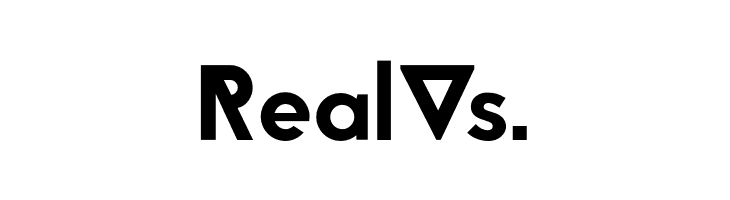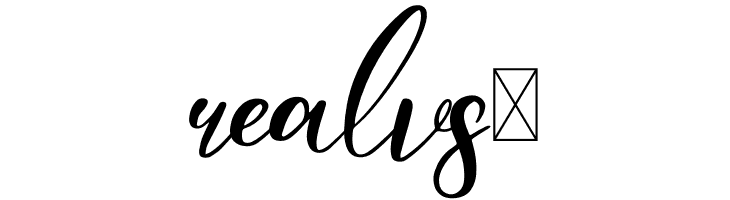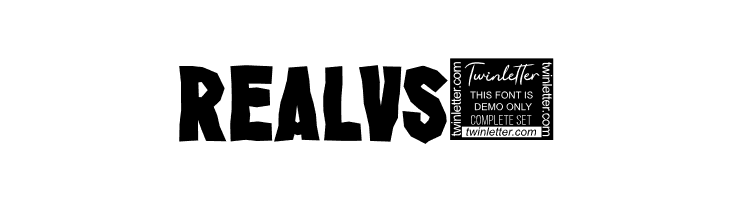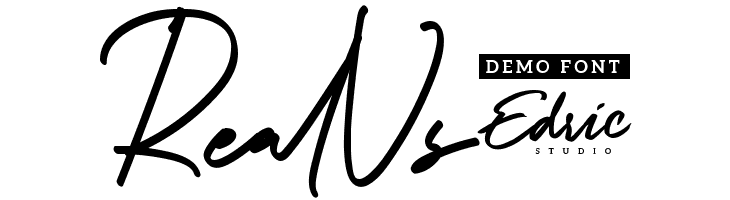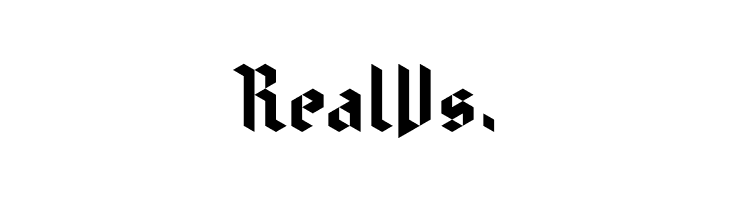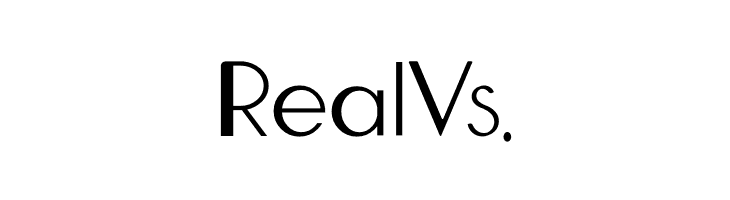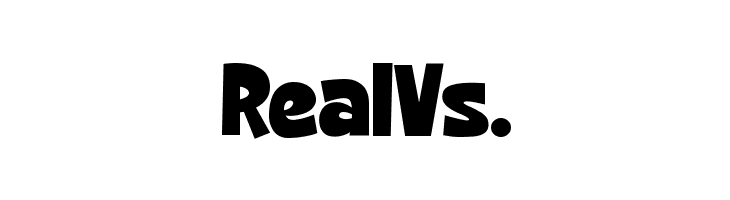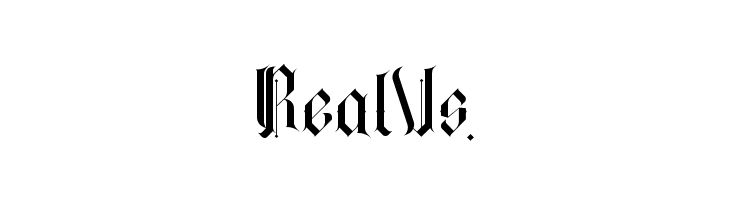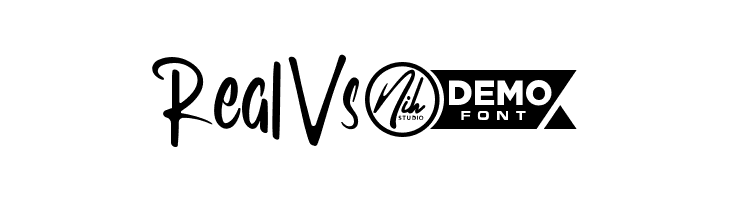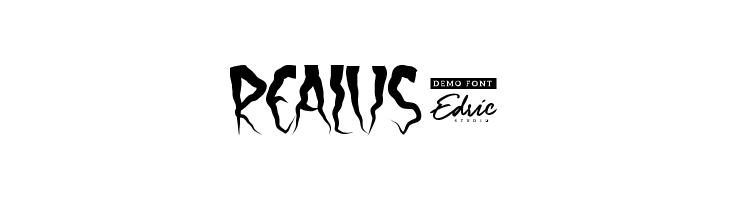
A modern, rounded sans-serif font with clean lines and balanced spacing.
A playful, rounded typeface with bold, smooth curves and a friendly appearance.
A sleek, ultra-thin font with a modern, geometric design.
A playful, handwritten font with a whimsical and informal style.
A playful, flowing script font with a handwritten charm.
A playful, casual handwritten font with smooth, flowing curves.
A playful, bold font with rounded edges and a hand-drawn feel.
A geometric, angular font with a futuristic and technical look.
A bold, angular font with a futuristic and geometric design.
A bold, italic, futuristic font with sharp, angular lines.
A bold, geometric font with a futuristic and edgy design.
A bold, angular, and italicized font with a futuristic style.
A modern, angular italic font with a futuristic and geometric style.
A bold, playful font with rounded, thick letterforms.
A modern serif font with clean lines and medium contrast, ideal for elegant designs.
A whimsical handwritten font with thin strokes and rounded edges.
A playful, handwritten script font with a casual and flowing style.
A bold, geometric font with sharp angles and high contrast, perfect for modern headlines.
A graceful, cursive script font with flowing, elongated strokes.
A bold, distressed font with a vintage, textured appearance.
A playful handwritten font with dynamic strokes and a casual, whimsical style.
A bold, expressive script font with flowing, cursive letterforms.
A lively, handwritten-style font with bold, irregular strokes.
A dynamic, handwritten font with fluid, slanted strokes.
( Nur Cholis Majid )
A bold, distressed font with a vintage, handcrafted appearance.
( Fonts by Jetsmax Studio - Khairil Anwar - Personal-use only. For commercial use please contact owner. )
A playful, bold font with a whimsical, hand-drawn style.
( Fonts by Rian Dryana )
A bold, playful font with a bubbly, rounded appearance.
( Fonts by Rian Dryana )
A playful, bold outline font with a bubbly, inflated appearance.
( Fonts by Bisou - Personal-use only. For commercial use please contact owner. )
A bold, brush-style font with sharp, dynamic strokes and a hand-drawn feel.
( Fonts by Bisou - Personal-use only. For commercial use please contact owner. )
A bold, geometric font with strong, uniform strokes for impactful design.
( Fonts by Bisou - Personal-use only. For commercial use please contact owner. )
A bold, 3D geometric font with a playful and dynamic style.
A bold, distressed font with a rugged and edgy appearance.
A bold, brush-style font with rough, textured edges for a hand-painted look.
A bold, geometric font with rounded edges and a modern, futuristic style.